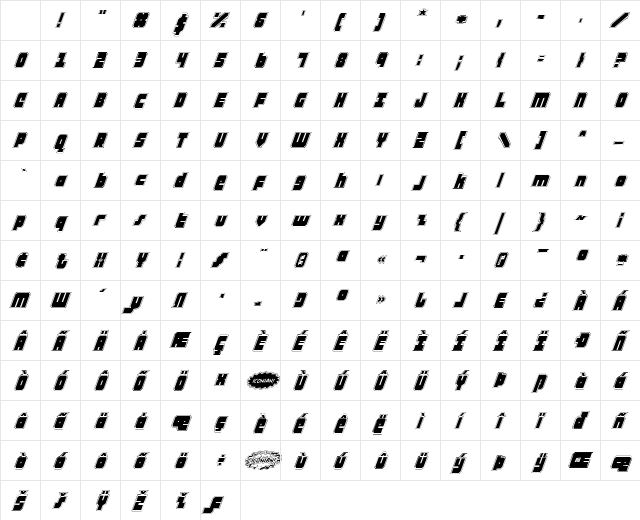
Complete Alpha Taurus Pro Italic glyph index. Displaying only characters natively supported by Alpha Taurus Pro Italic font.
Alpha Taurus is a composed and adaptable typeface that performs quietly and consistently across a wide range of design contexts. The slanted form adds forward momentum and visual energy.